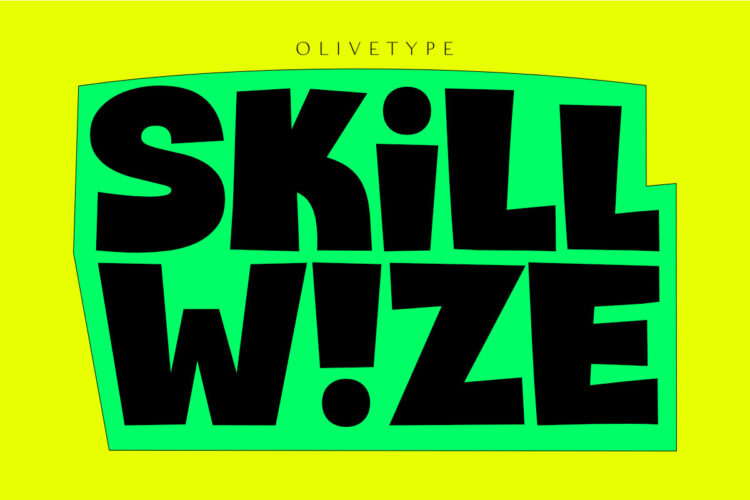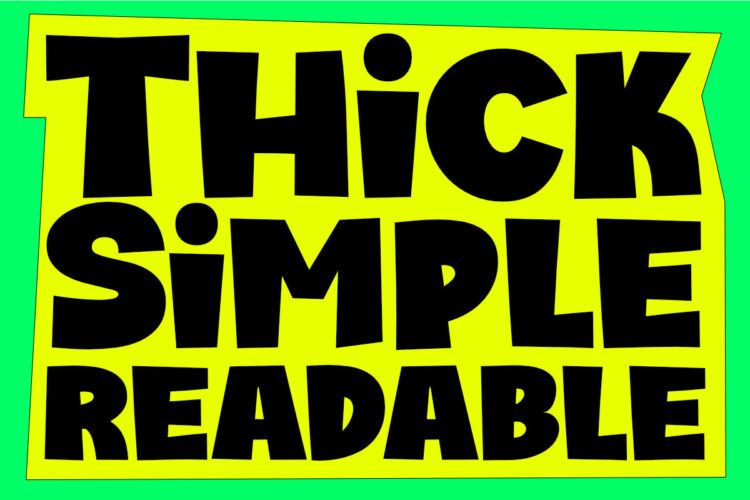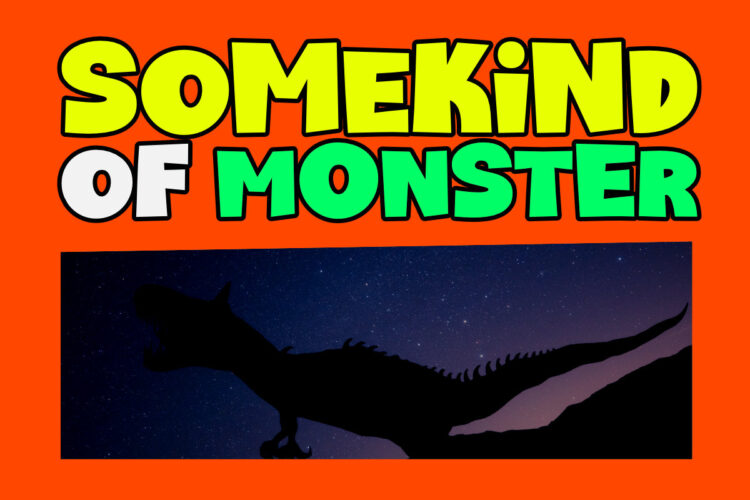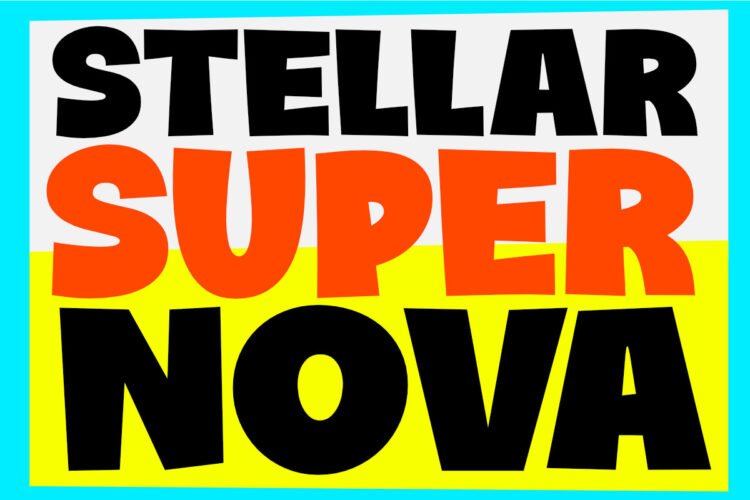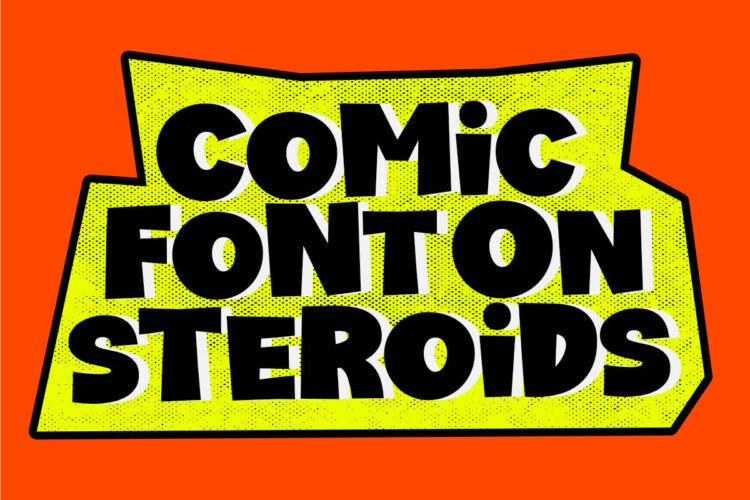
Grow your imagination, this font is for you. Skillwize is a bold and fun typeface. This playful, thick font is perfect for your next design project. It will give you the personality you’ve been looking for. Skillwize is fresh, creative, and has a little bit of everything: it’s casual, yet serious; soft yet hard, and made for everyone. Use Skillwize for product packaging, posters, newsletters, invitations, blog posts, headlines – any design where you want to stand out with your creativity. Try it out today!